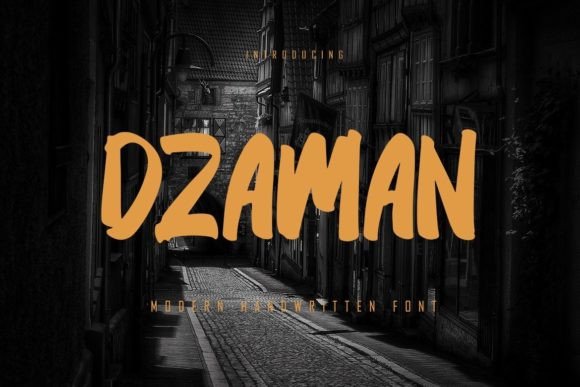
Dzaman: A Bold Font for Creative Expression
When it comes to design, the right font can transform a project from ordinary to extraordinary. Dzaman is a display font that stands out with its bold and unique character, making it ideal for projects that demand a personalized touch. Whether you're designing wedding invitations, logos, or greeting cards, Dzaman offers a distinctive style that captures attention and conveys personality.
What makes Dzaman special is its ability to blend strength with elegance. The font’s sharp lines and dynamic shapes give it a modern feel while maintaining a sense of sophistication. This versatility allows it to fit into a wide range of design contexts, from formal events to casual branding efforts. Its clean structure ensures readability even at smaller sizes, making it a practical choice for various applications.
Exploring Creative Possibilities with Dzaman
Designers and creators often look for fonts that can help them stand out in a crowded market. Dzaman provides that edge by offering a visual identity that is both memorable and impactful. For instance, wedding invitations that use Dzaman can immediately convey a sense of importance and style, setting the tone for a memorable event. The font’s boldness adds a touch of luxury without overwhelming the design.
Thank you cards are another area where Dzaman shines. These cards often require a balance between personalization and professionalism. By using Dzaman, you can create a heartfelt message that feels both sincere and stylish. The font’s unique shape helps make each card feel like a one-of-a-kind piece, which is perfect for expressing gratitude in a meaningful way.
Logos are another powerful application of Dzaman. A well-designed logo needs to be recognizable and versatile across different mediums. Dzaman’s strong presence makes it an excellent choice for brands looking to establish a bold identity. Whether it's a tech startup, a fashion label, or a creative agency, Dzaman can help create a visual signature that resonates with the target audience.
Adapting Dzaman for Different Goals and Audiences
The beauty of Dzaman lies in its adaptability. It can be used in various formats and platforms, making it suitable for both digital and print media. For example, social media posts that feature Dzaman can grab attention quickly, helping to increase engagement and brand visibility. The font’s striking appearance works well on banners, headlines, and promotional materials, ensuring that your message stands out in a busy feed.
For small business owners, Dzaman can be a valuable tool in building a consistent brand image. By incorporating the font into business cards, packaging, and marketing materials, you can create a cohesive look that reflects your brand’s values. This consistency helps build trust and recognition among customers, which is essential for long-term success.
Entrepreneurs and marketers can also benefit from using Dzaman in their campaigns. Whether it's a product launch, a website header, or an email newsletter, the font’s boldness can help emphasize key messages and drive action. Its ability to command attention makes it an effective choice for calls to action and promotional content.
Practical Tips for Using Dzaman Effectively
To get the most out of Dzaman, it's important to consider how it interacts with other design elements. Pairing it with complementary fonts can help create a balanced composition. For example, using a simpler sans-serif font for body text while reserving Dzaman for headings can add visual interest without overwhelming the reader.
Another tip is to experiment with different sizes and weights. While Dzaman is naturally bold, adjusting its size can help it fit into various design layouts. Larger sizes work well for titles and headers, while smaller sizes can be used for subheadings or accents. This flexibility allows you to maintain a consistent look across different projects.
Finally, don’t forget to test Dzaman in real-world scenarios. View it on different devices and backgrounds to ensure it remains legible and visually appealing. This step is crucial for maintaining the quality of your designs and ensuring that your message is communicated effectively.
Real-World Applications and Inspiration
Looking for inspiration? Consider how Dzaman can be used in everyday design projects. For instance, a blogger might use it for a featured post title to draw readers in and highlight the content. A teacher could incorporate it into classroom materials to make learning more engaging and visually appealing.
Freelancers and creatives can also use Dzaman to showcase their work in portfolios. A well-designed portfolio that features Dzaman can demonstrate a designer’s ability to create eye-catching visuals while maintaining professionalism. This can help attract potential clients and set the designer apart from the competition.
For hobbyists and DIY enthusiasts, Dzaman offers a way to add a personal touch to handmade items. From custom stickers to embroidered patches, the font can be used to create unique pieces that reflect individual style and creativity.
Whether you’re a seasoned professional or just starting out, Dzaman offers a versatile solution for adding personality and style to your projects. With its strong visual presence and practical benefits, it’s a font that can help you stand out and connect with your audience in meaningful ways.